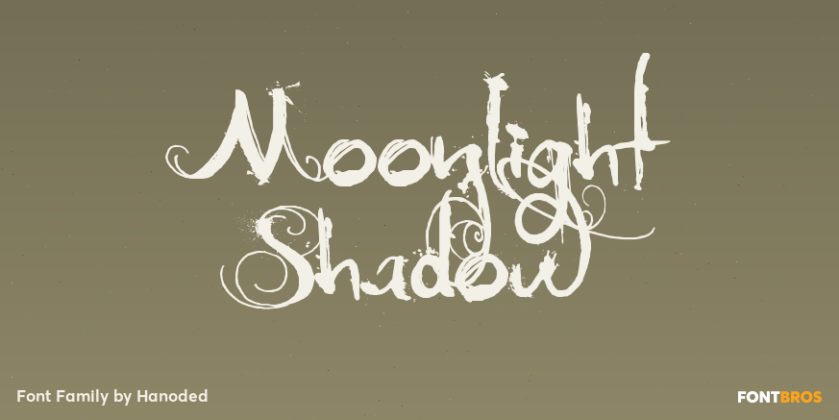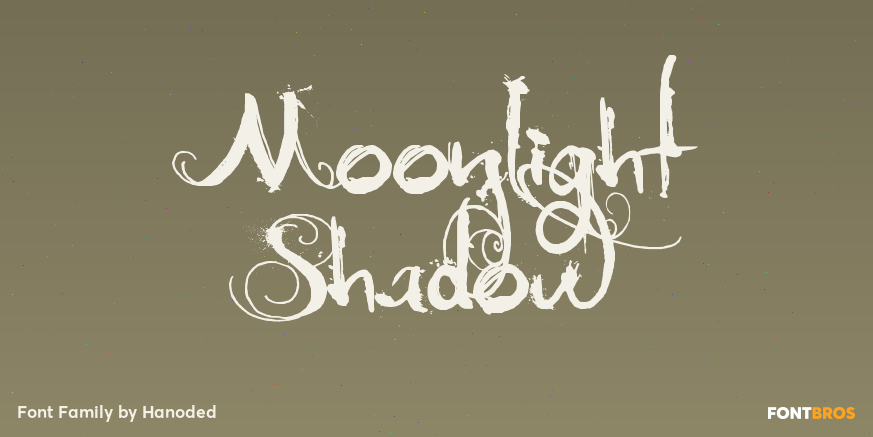
HomeFont BrosHandwrittenMoonlight Shadow HandwrittenSpecial EffectWacky Moonlight Shadow FacebookXPinterestWhatsApp 1 of 1 About Moonlight Shadow is a weird, but surprisingly versatile font. It is curly, messy – yet elegant and comes with all the accents.  DOWNLOAD ON FONT BROSThis font is sold and delivered by Font Bros. Font Canyon may earn a commission if you buy through this link. People also explored Weltron Brezome Font Curly Sweet Font Witcher Font Reallisa Font Electra Font PN Breakfast Burrito Font Romedance Font Bulandari Font 243 0 TagsMoonlight Shadow Font Previous articleCoffee ServiceNext articleValfieris Aged LEAVE A REPLY Cancel reply Comment: Please enter your comment! Name:* Please enter your name here Email:* You have entered an incorrect email address! Please enter your email address here Website: Save my name, email, and website in this browser for the next time I comment. Personal Use Free Electroharmonix Personal Use Free Read more about this font Fakedes Personal Use Free Read more about this font Rare Knuckle Personal Use Free Read more about this font Hearted Personal Use Free Read more about this font BLOG Free vs Paid Fonts: Why Investing in Premium Fonts Is Worth It Free vs Paid Fonts: Why Premium Fonts Are Worth It in 2025 The debate of free vs paid fonts continues in the design world. While... Modern Sans-Serif Fonts That Brands Love in 2025 Free Fonts Risk: Why Free Fonts Can Be Dangerous for Designers Best Fonts for YouTube Videos: Make Your Thumbnails Stand Out